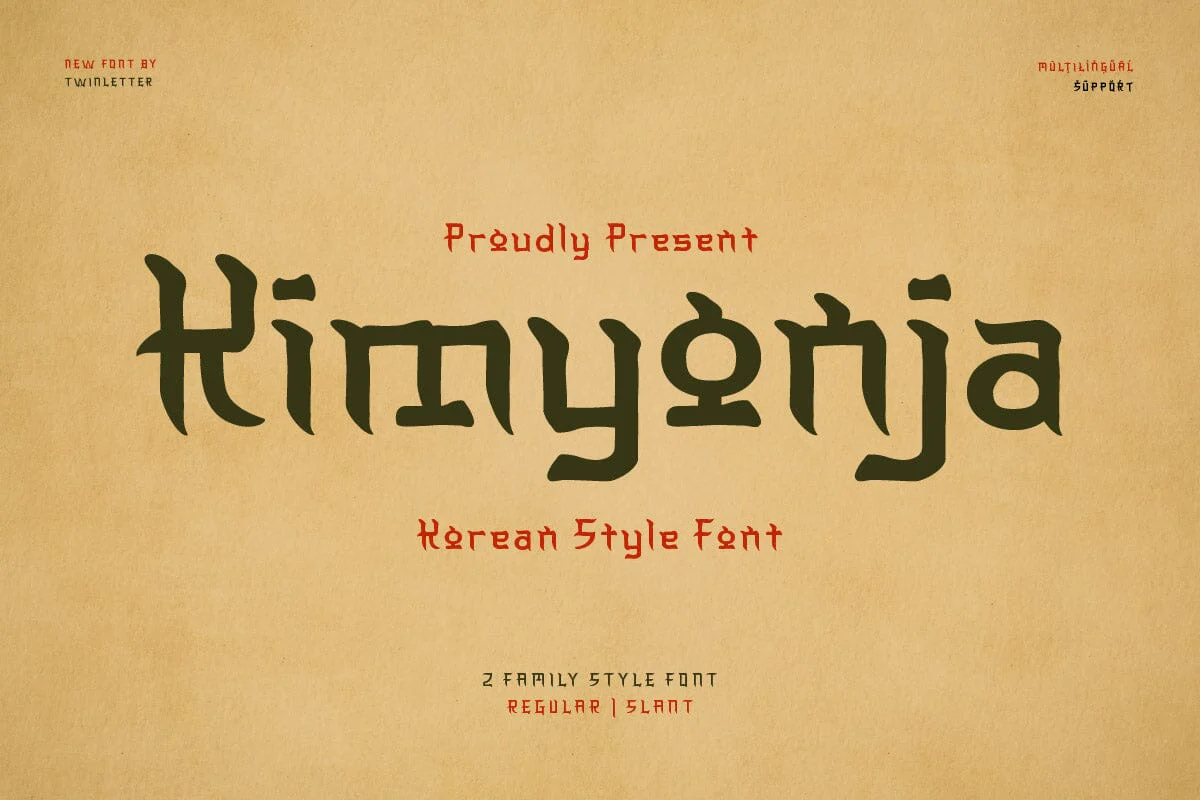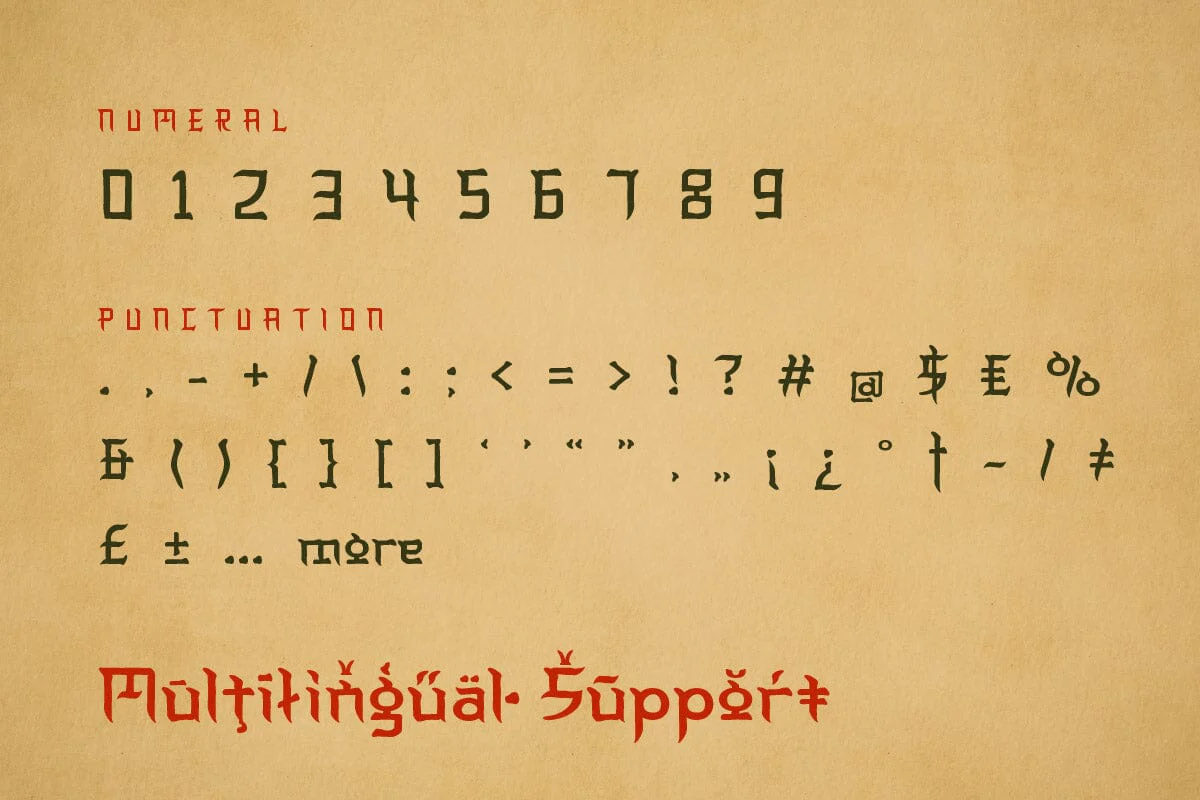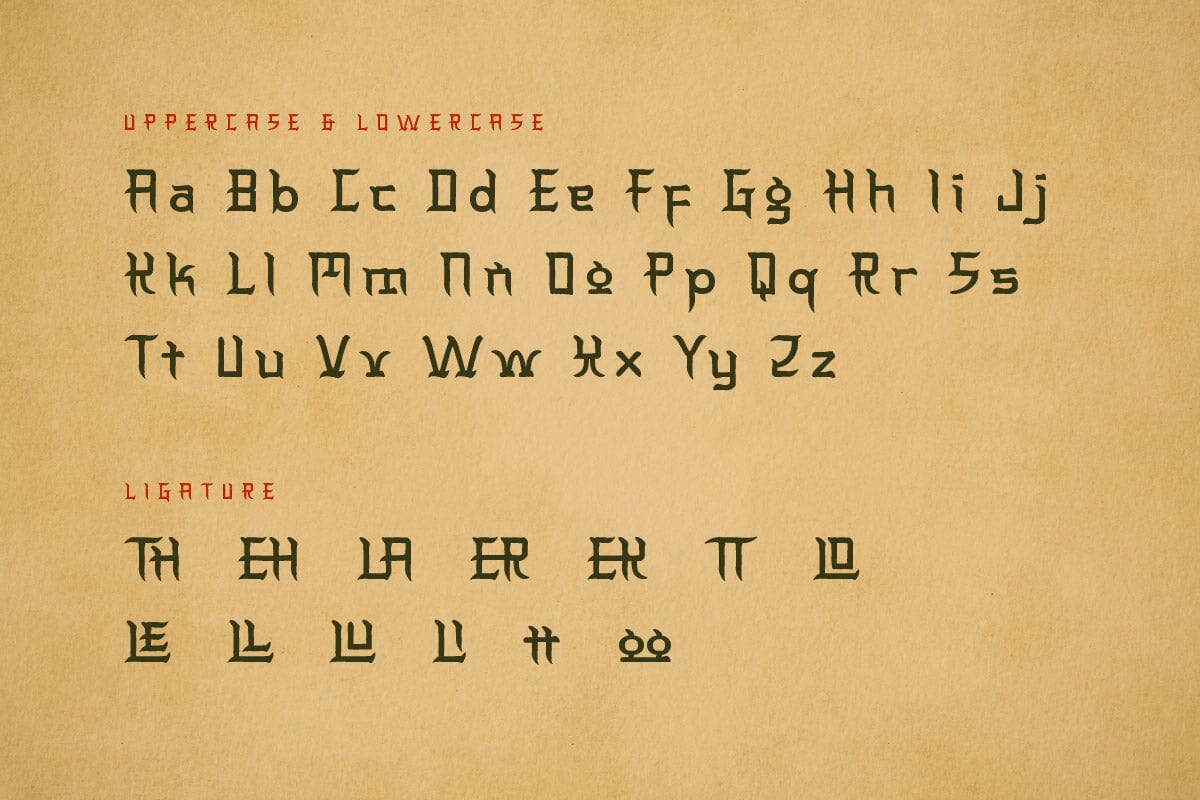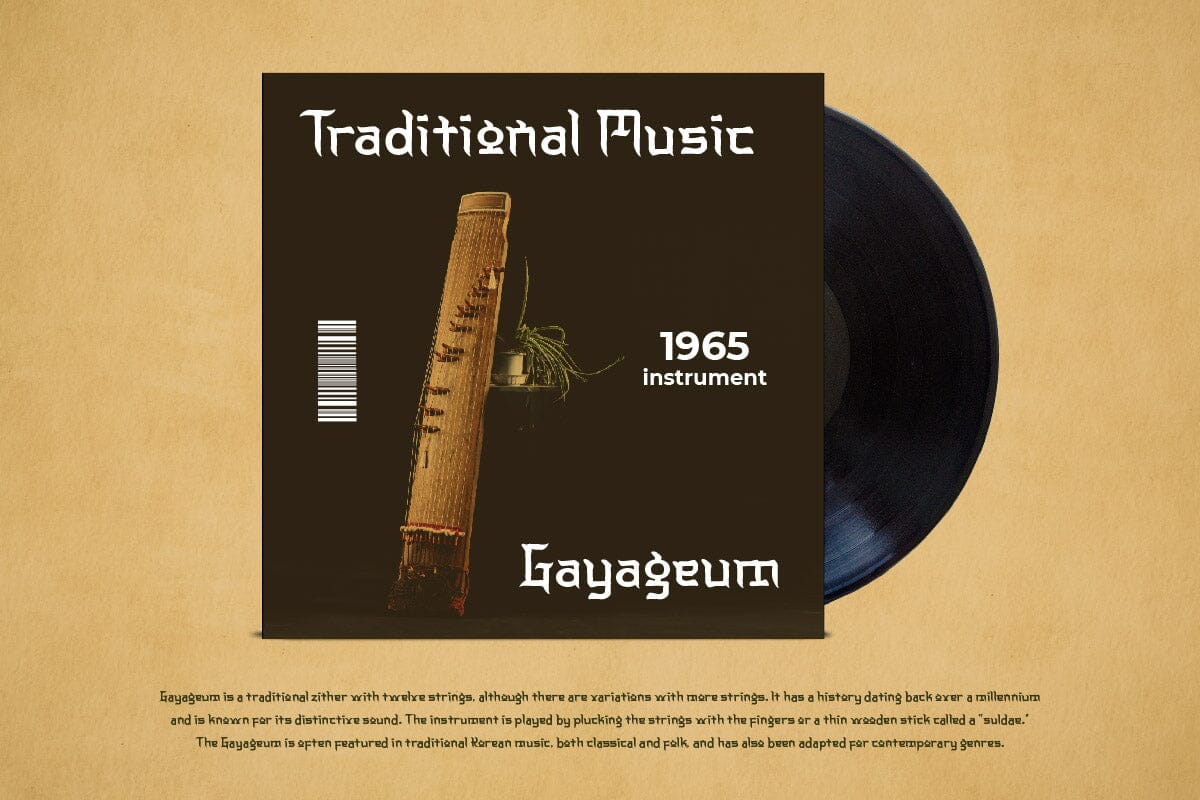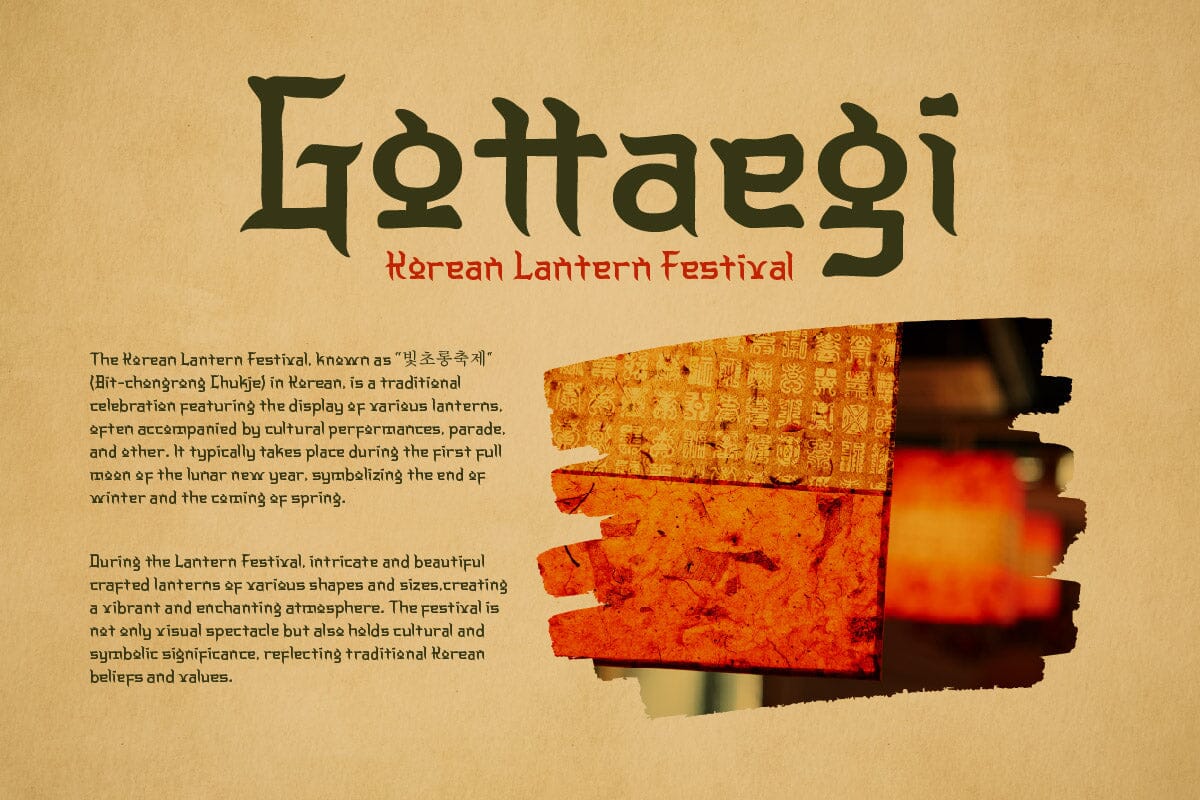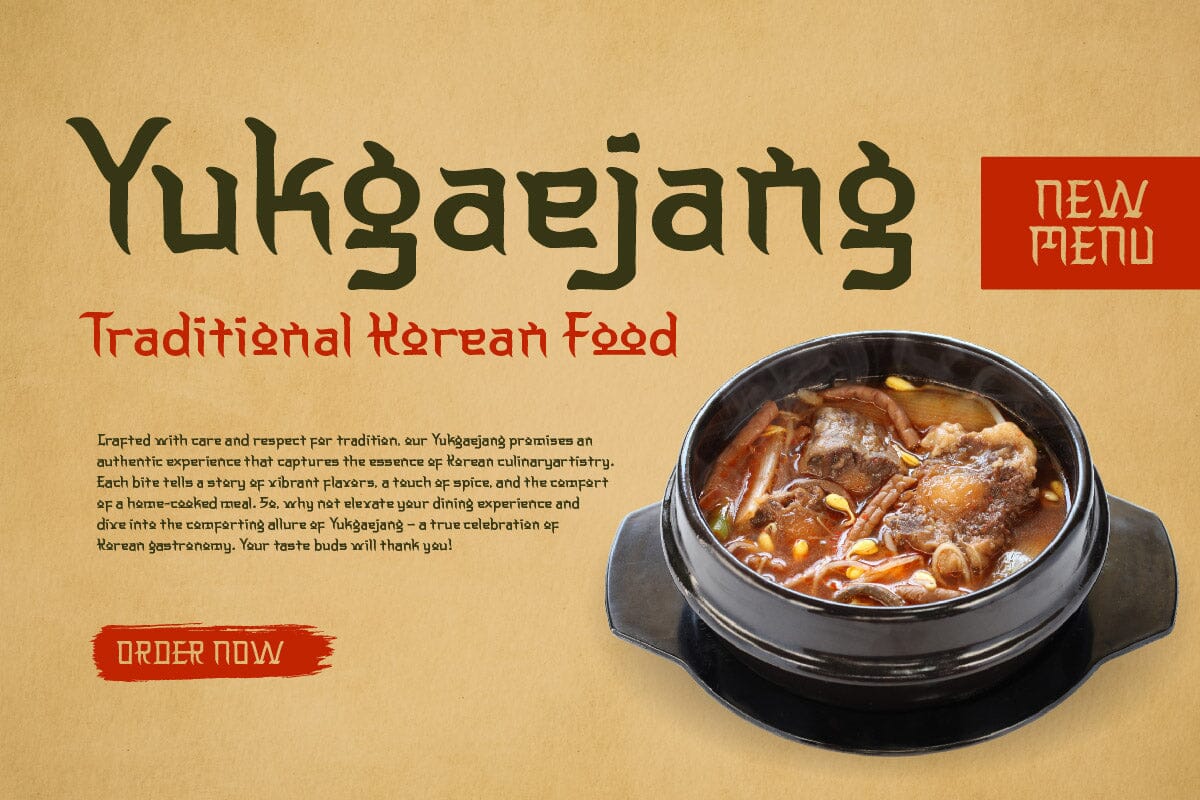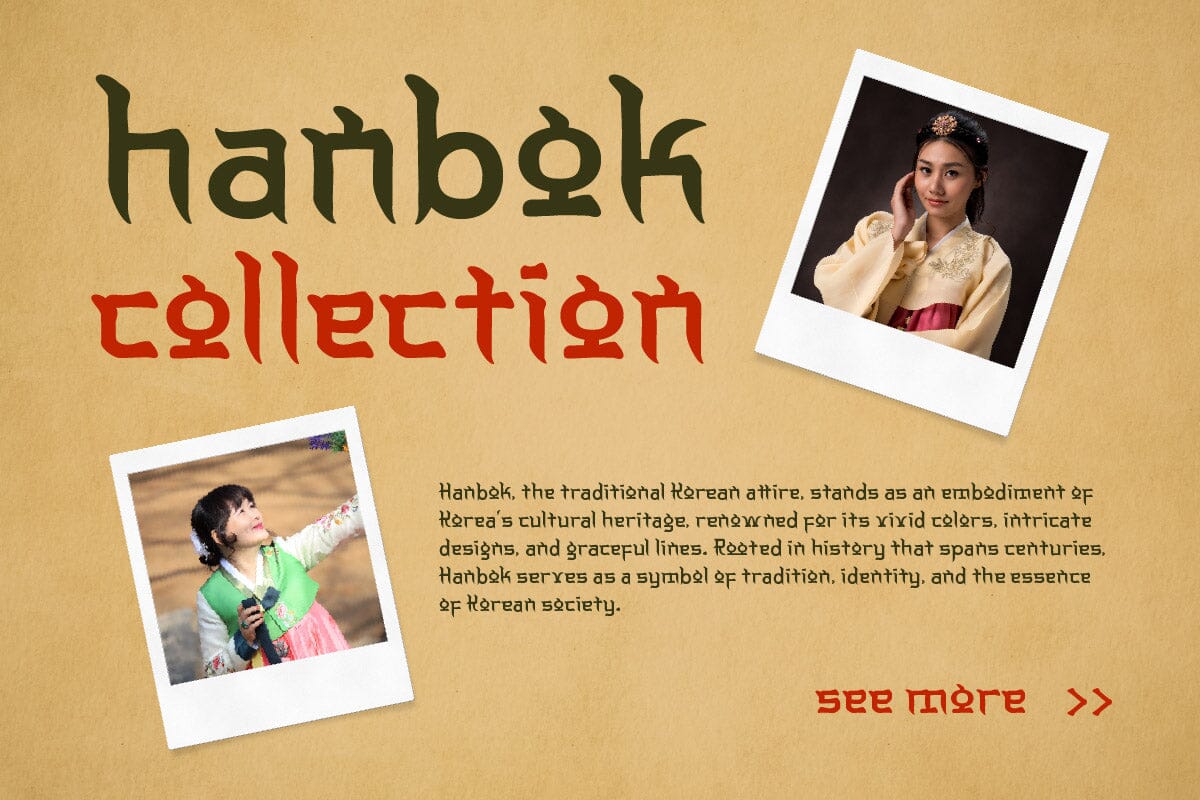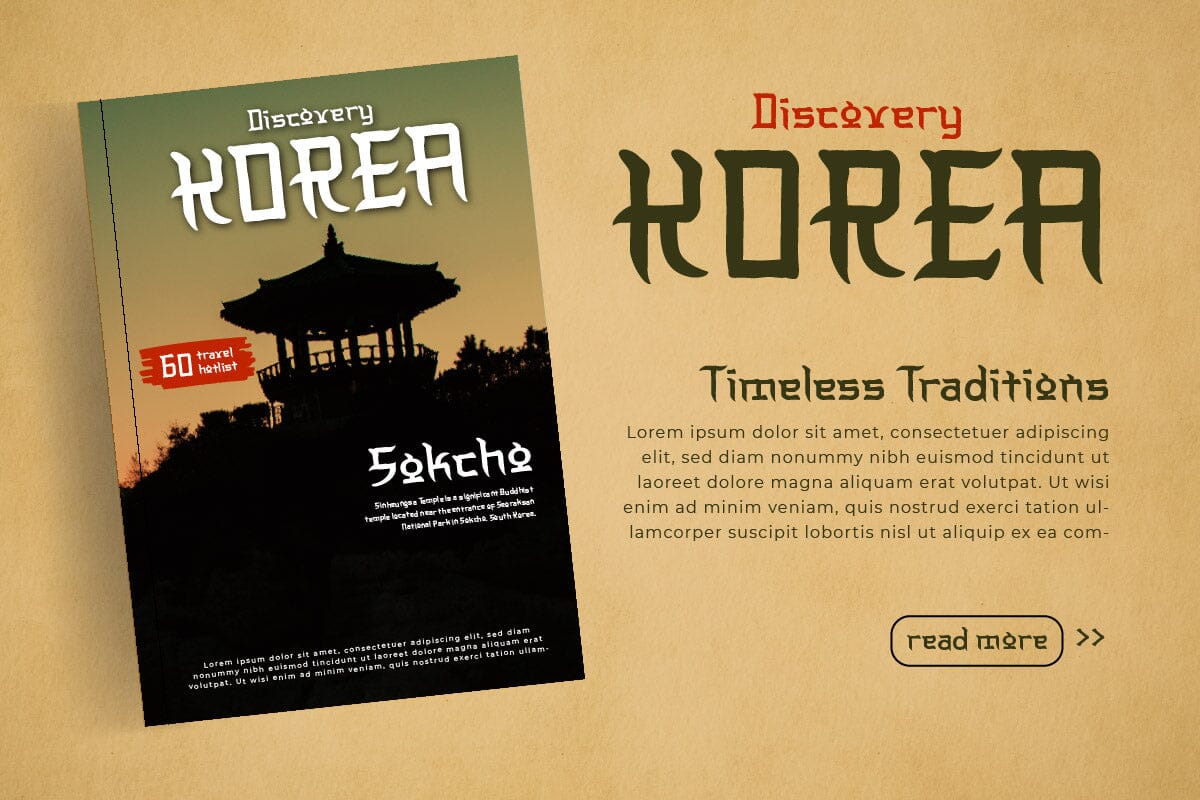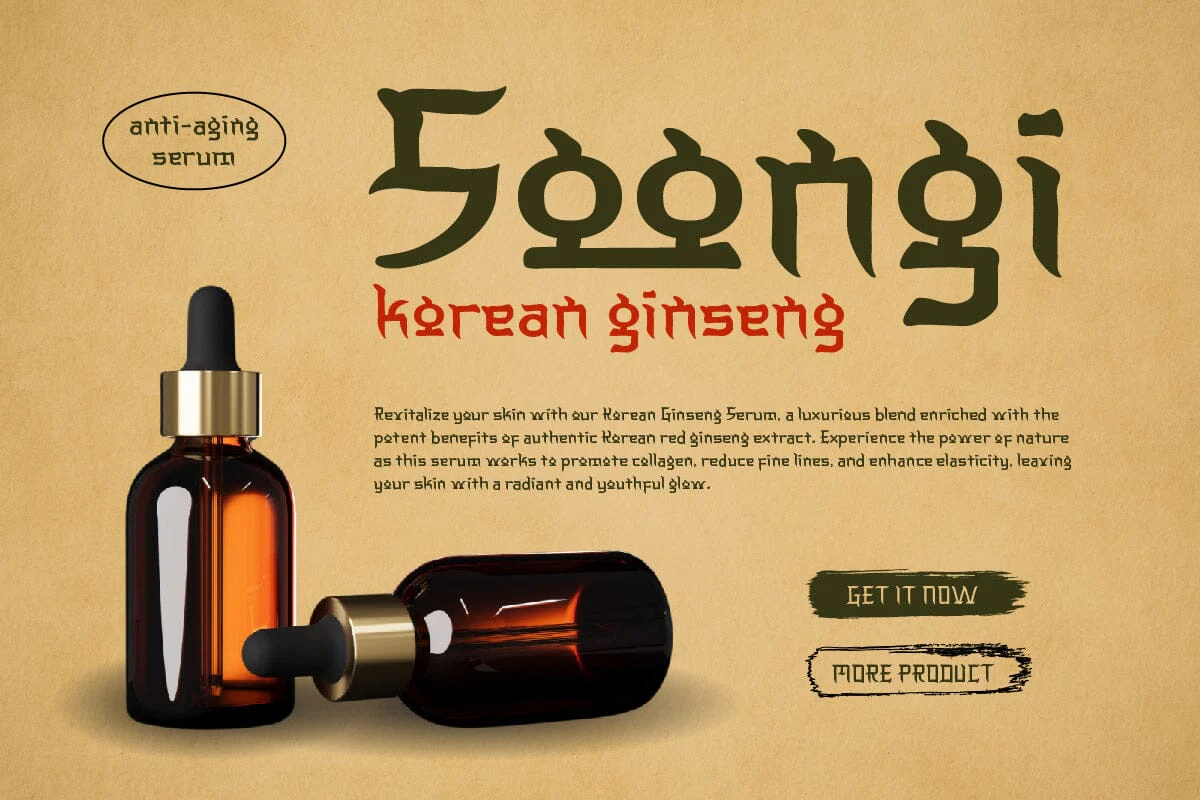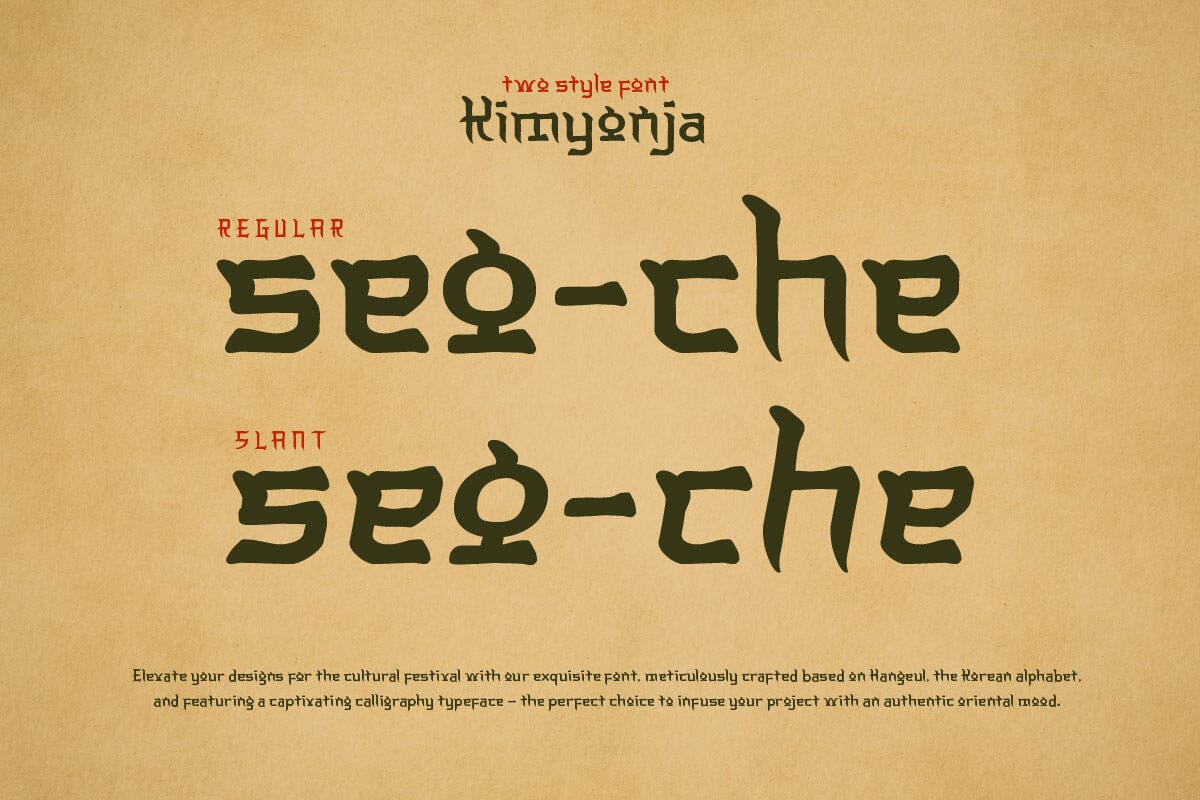
Kimyonja - Korean Style Font
Bring Korean elegance into your designs with Kimyonja, a stunning Korean font with a distinct Asian charm. With each letter depicting tenderness and beauty, Kimyonja takes you on a journey through the enchanting Korean culture. Kimyonja is the perfect choice for branding projects, logo typography, and special events that want to embrace the beauty of Asia. The classic yet modern design gives a unique and charming touch to each piece. Let Kimyonja be your guide to exploring Korea's rich cultural heritage. With this font, bring a charming and enchanting feel to your designs, making every project a representation of timeless beauty. Whatโs Included: - File font OTF, TTF, WOFF, WOFF2, CSS, HTML - All glyphs and variation - We highly recommend using a program that supports OpenType features and Glyphs panels like many Adobe apps and Corel Draw so that you can see and access all Glyph variations. - PUA Encoded Characters โ Fully accessible without additional design software. - Fonts include Multilingual support